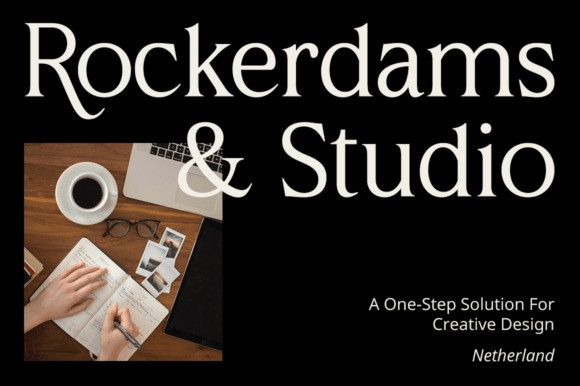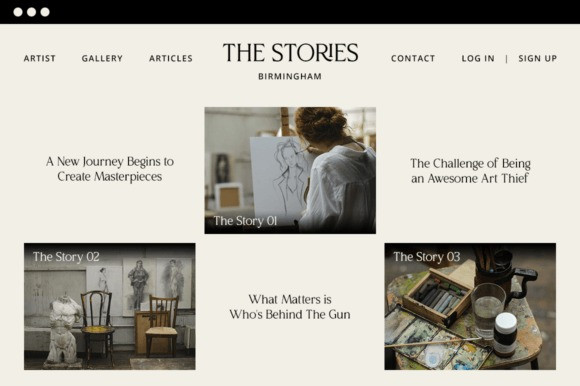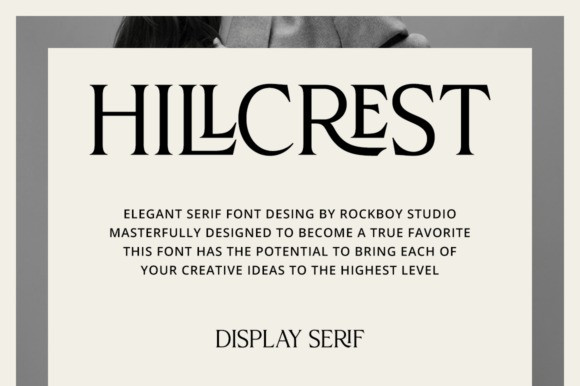
Hillcrest Font
Hillcrest Font is an elegant and distinct serif font. Suitable for a wide variety of designs due to its neat and simple style, this font has the potential to become your favorite go-to font, no matter the occasion!